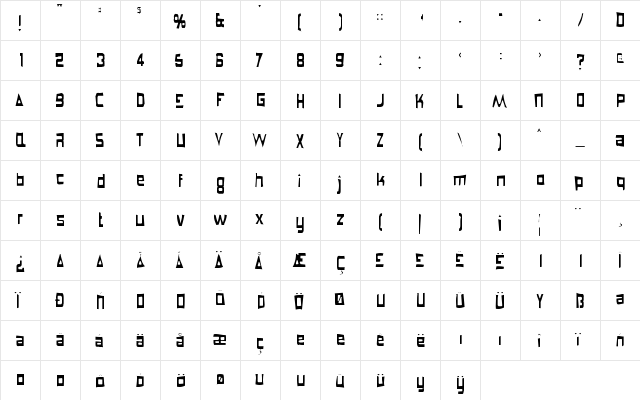
Anglepoise Lampshade Gaunt Regular
Design Context for Anglepoise Lampshade Gaunt Typeface
Anglepoise Lampshade Gaunt takes a measured approach to typography — its balanced proportions and neutral character make it a reliable workhorse for both digital and print work.